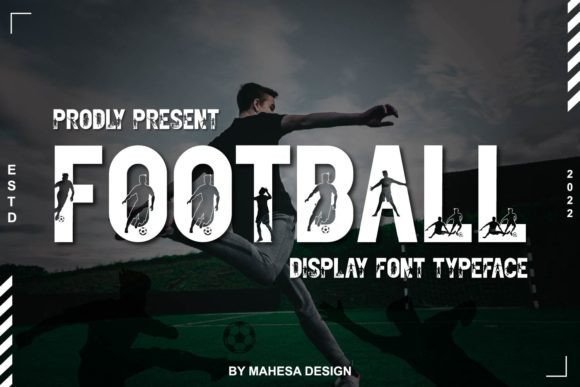
Score Big with Football Font: Elevate Your Designs
Do you remember the rush of excitement when your favorite football team scores a goal? The energy in the stadium, the cheers of the crowd, the sense of pride and accomplishment – it’s a feeling like no other. As a designer, you can capture that same energy and excitement with a font that embodies the spirit of the game: Football Font.
This cool and fun display font is designed to bring the thrill of the game to your designs. Perfect for sporting events, team merchandise, and more, Football Font is a game-changer for any designer looking to add a touch of excitement to their work. With its clean and stylish design, Football Font is a valuable addition to any design toolkit.
Key Features of Football Font
- Font Style: A sans-serif font with a modern and bold design, perfect for sports-related graphics and typography.
- Unique Characteristics: The font features custom-designed letterforms, including unique ligatures and swashes, which give it a distinctive and dynamic feel.
Designer Review: Football Font
Overall, I’d say the Football Font is a solid effort, but it’s not without its flaws. Let’s dive into what works well and what doesn’t.
- Customizable: The font offers a range of customization options, including different weights and styles, which can be really useful for designers looking to create a unique visual identity.
- Clean lines: The font’s clean lines and minimalist aesthetic make it a great choice for sports-related branding or design projects.
- Legible: The font is easy to read, even at smaller sizes, which is essential for any design project.
- Limited character set: The font’s character set is somewhat limited, which can make it difficult to use in certain situations, such as when needing to display complex text.
- Not suitable for body text: While the font is great for headlines and titles, it’s not the best choice for body text due to its simplicity and lack of readability at smaller sizes.
Overall, I’d give the Football Font 3.5 out of 5 stars. While it’s a solid choice for certain design projects, it’s not the most versatile font out there. With some additional development to address its limitations, it could be a real contender in the design world.
Football Font is ideal for creating sports-themed designs, such as:
- Sports team logos and branding
- Scoreboards and score displays
- Football-themed posters and flyers